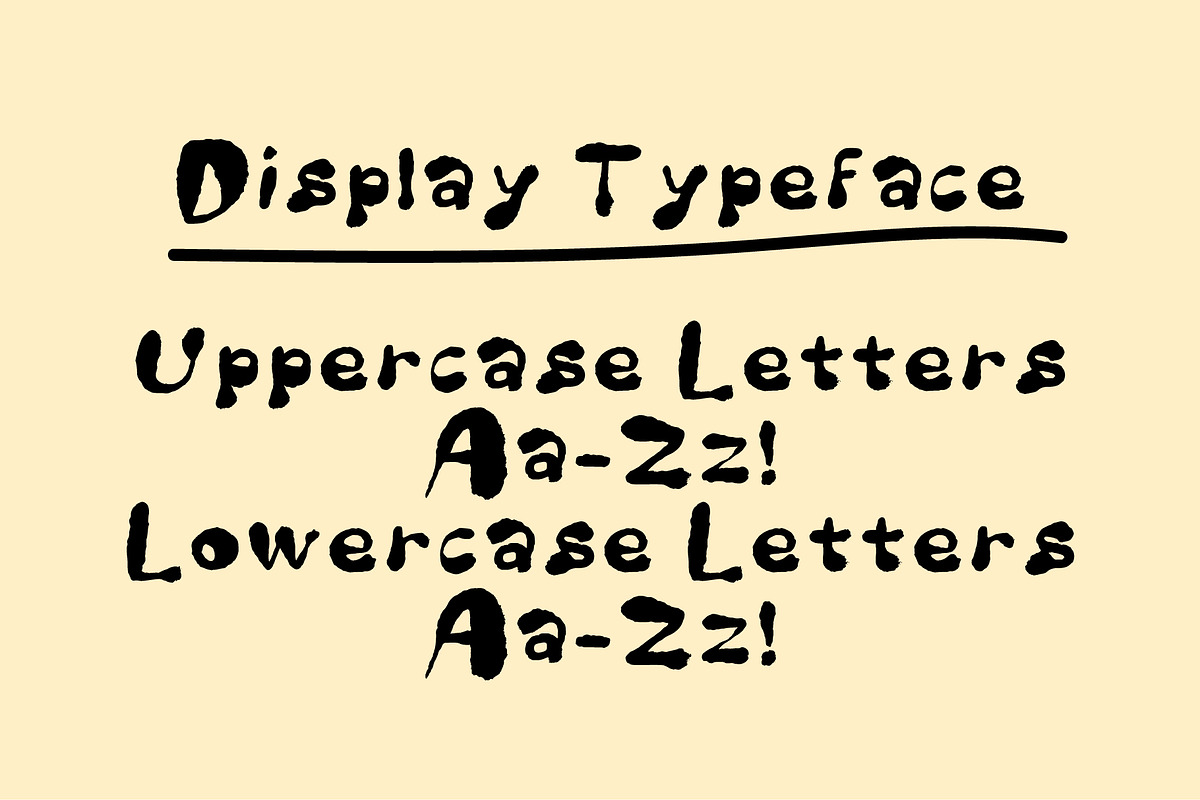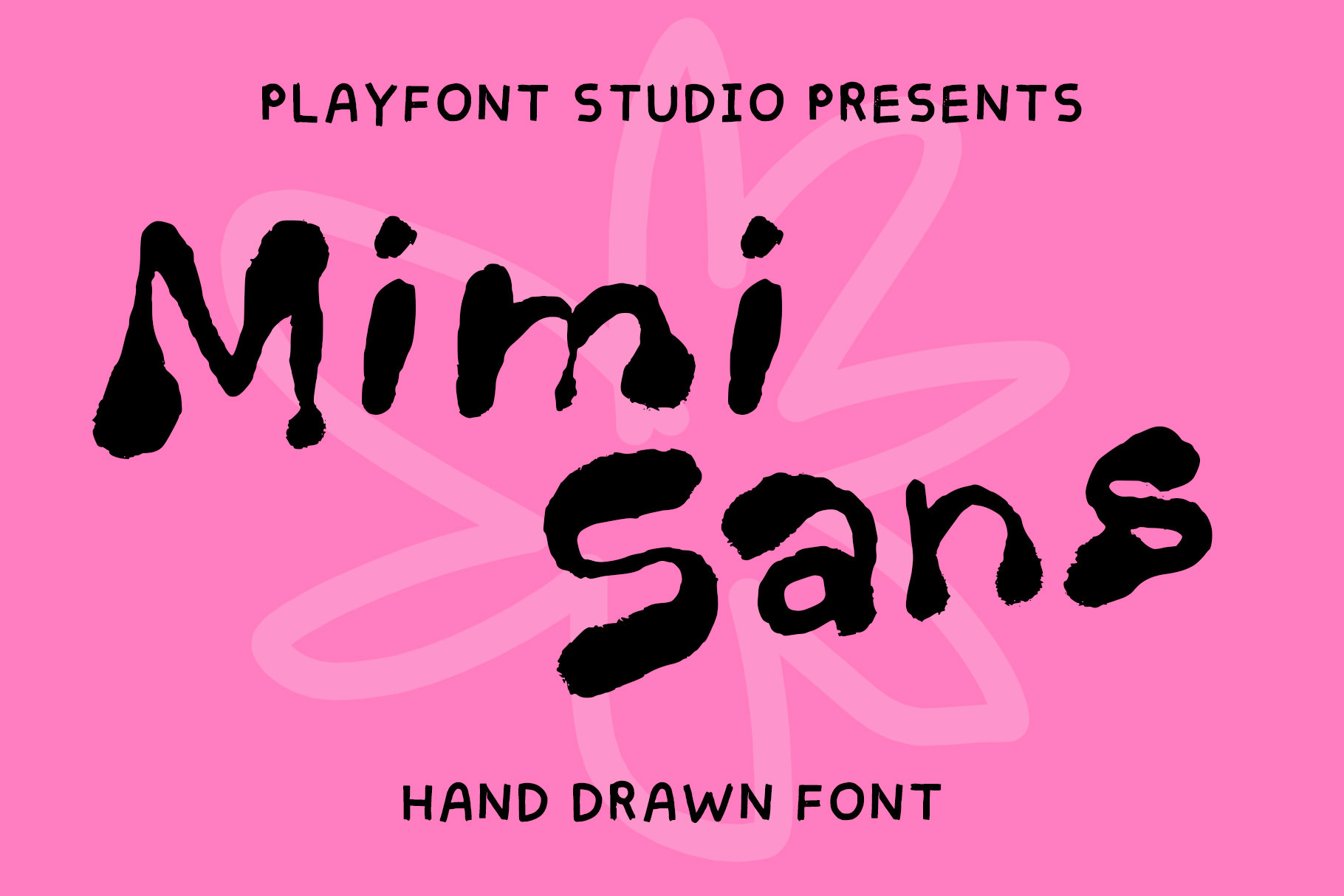
Mimi Sans - A Hand-lettered Font
Mimi Sans is the font that refuses to be ignored.
Big, bold, and full of personality - Mimi Sans was made for brands and designers who want their work to stop the scroll. With its expressive hand-lettered quality and powerful visual weight, it's ideal for logos, festival posters, music merch, apparel graphics, and any project that needs to make a statement.
Logo design & brand identity
Music festival & event posters
Apparel, streetwear & merch graphics
Social media headers & content
Album artwork & music branding
Food truck & bar branding
Full uppercase & lowercase character set
If your project needs character, grit, and energy this delivers!